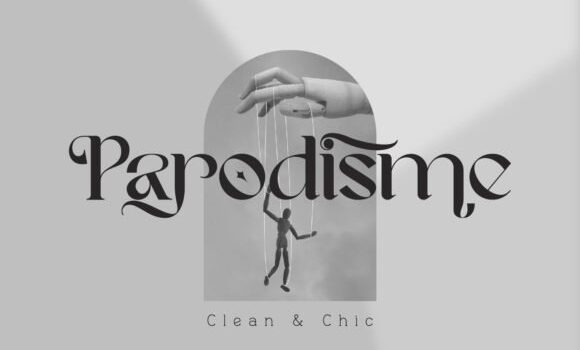
parodisme
Parodisme Font – Free Download Introduction to Parodisme Font Parodisme is a high-contrast serif font family that has many alternatives and unique shapes. 📸 Preview Gallery 6 images 📌 Product Name Parodisme Font 👤 Author Creative17studio 📂 Category Explore ⬇️